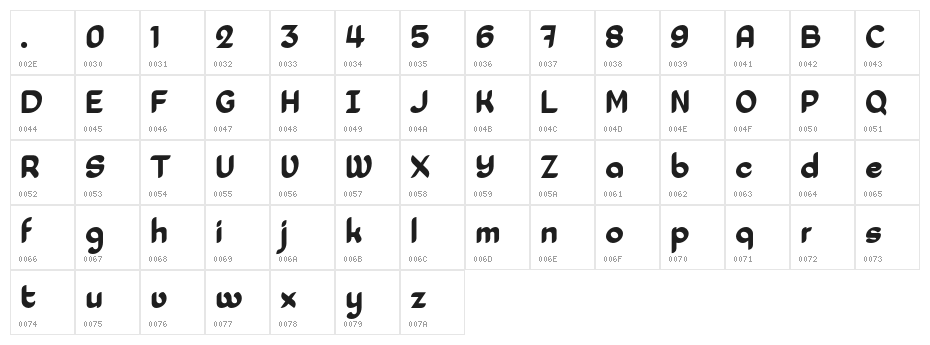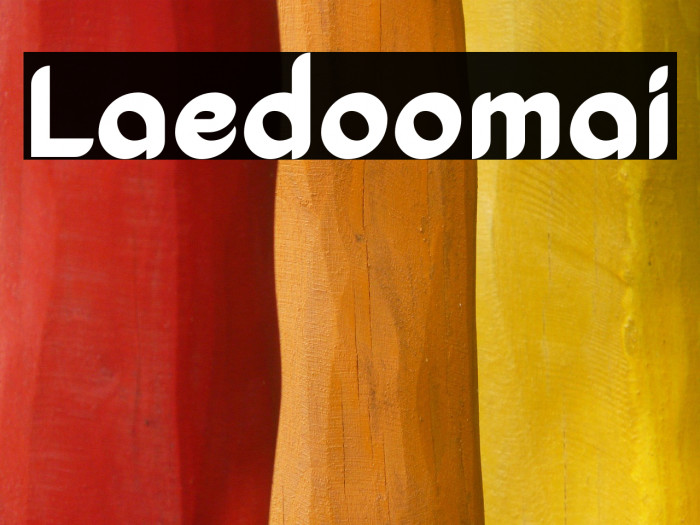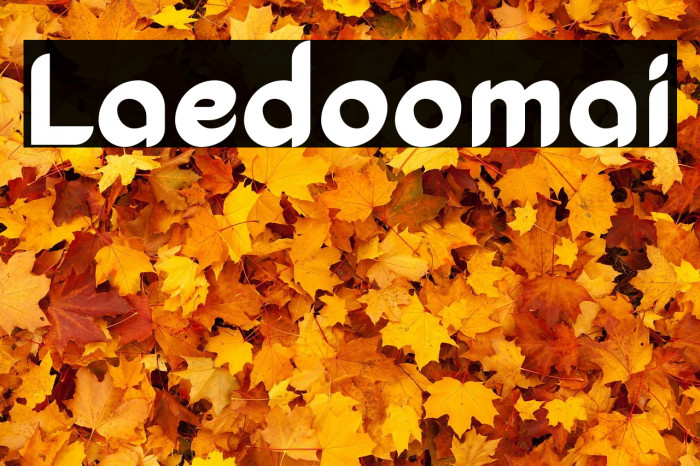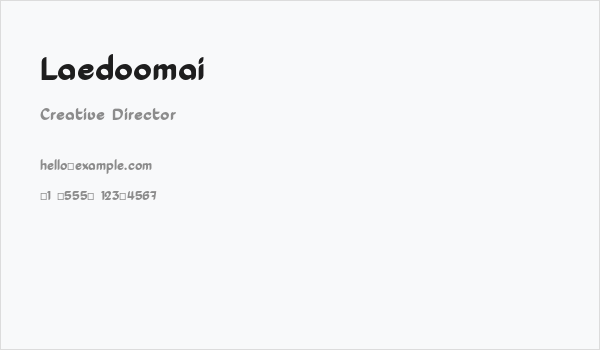
Laedoomai Font
Laedoomai Description
This font features a bold and rounded style with a playful and approachable appearance. The characters are uniformly thick, giving it a strong presence while maintaining a friendly vibe. The rounded edges and smooth curves contribute to its modern and casual look, making it suitable for a variety of informal applications. The font's design is consistent across uppercase and lowercase letters, as well as numerals, ensuring readability and coherence. Its boldness and rounded forms make it ideal for projects that require a touch of fun and creativity.
Proposed ProjectsIdeal for children's books, playful branding, casual invitations, and creative posters.